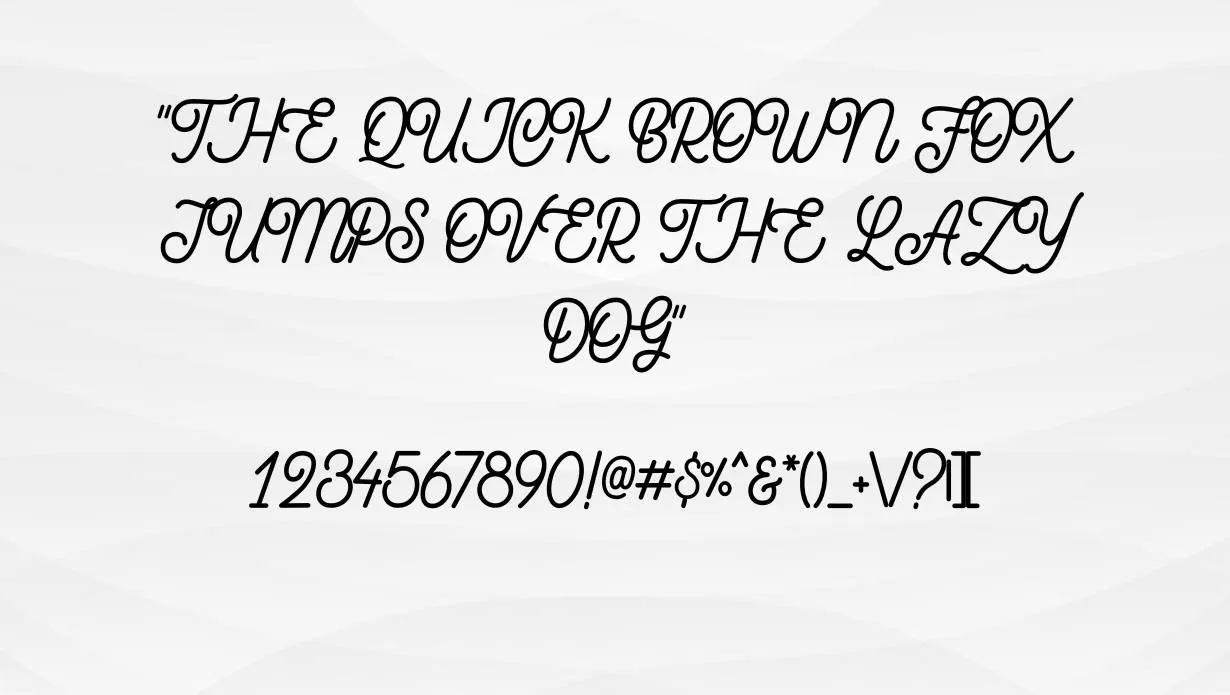
Yesterday Dream Font provides a sleek and simple design, ideal for editorial layouts, websites, and papers.
Yesterday Dream Font Family
| Name | Yesterday Dream Font |
| Designer | Letterflow Studio |
Its straightforward lines and contemporary style make it a practical choice for conveying clarity and professionalism in your projects.